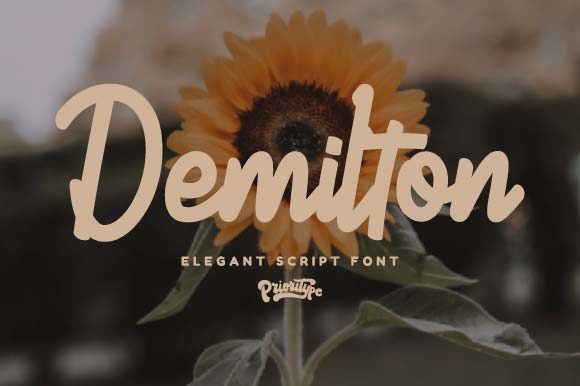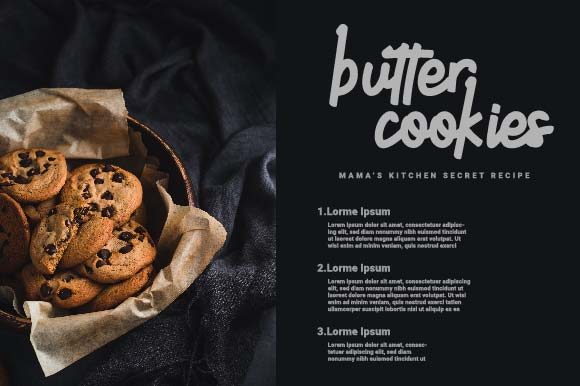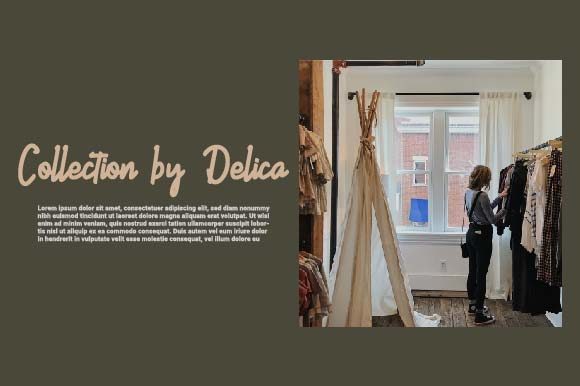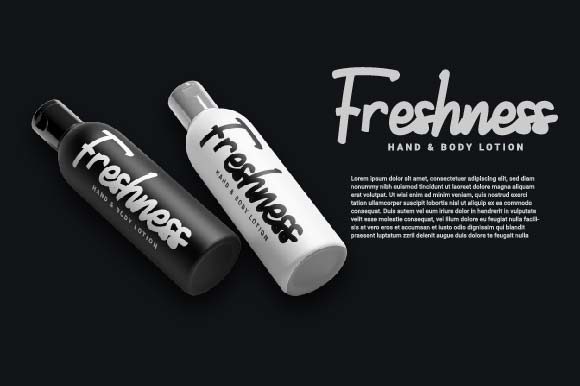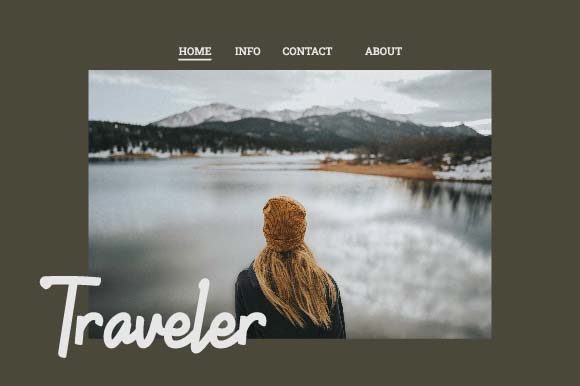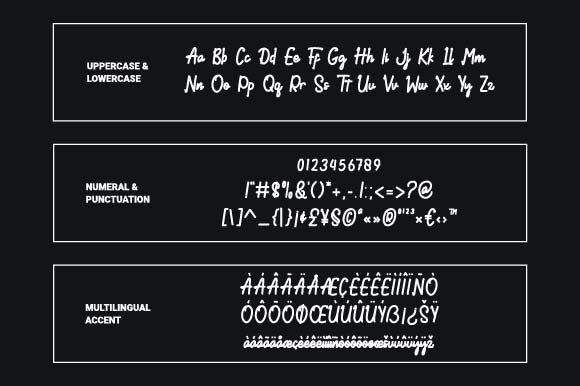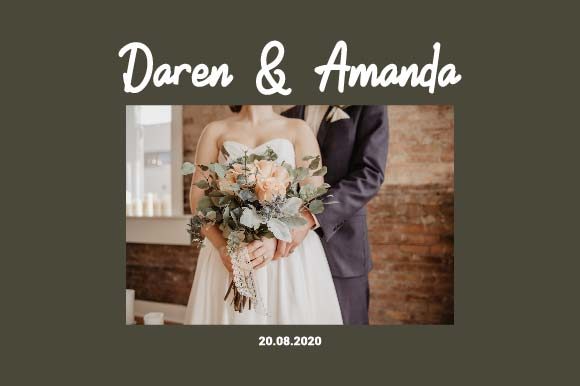
Demilton Font
About Demilton Font
Demilton is a lovely paint brush handwritten font. Fall in love with its incredibly versatile style and use it to create gorgeous wedding invitations, beautiful stationary art, eye-catching social media posts, and much more!